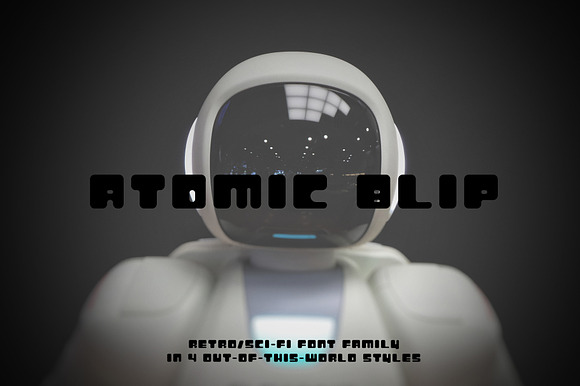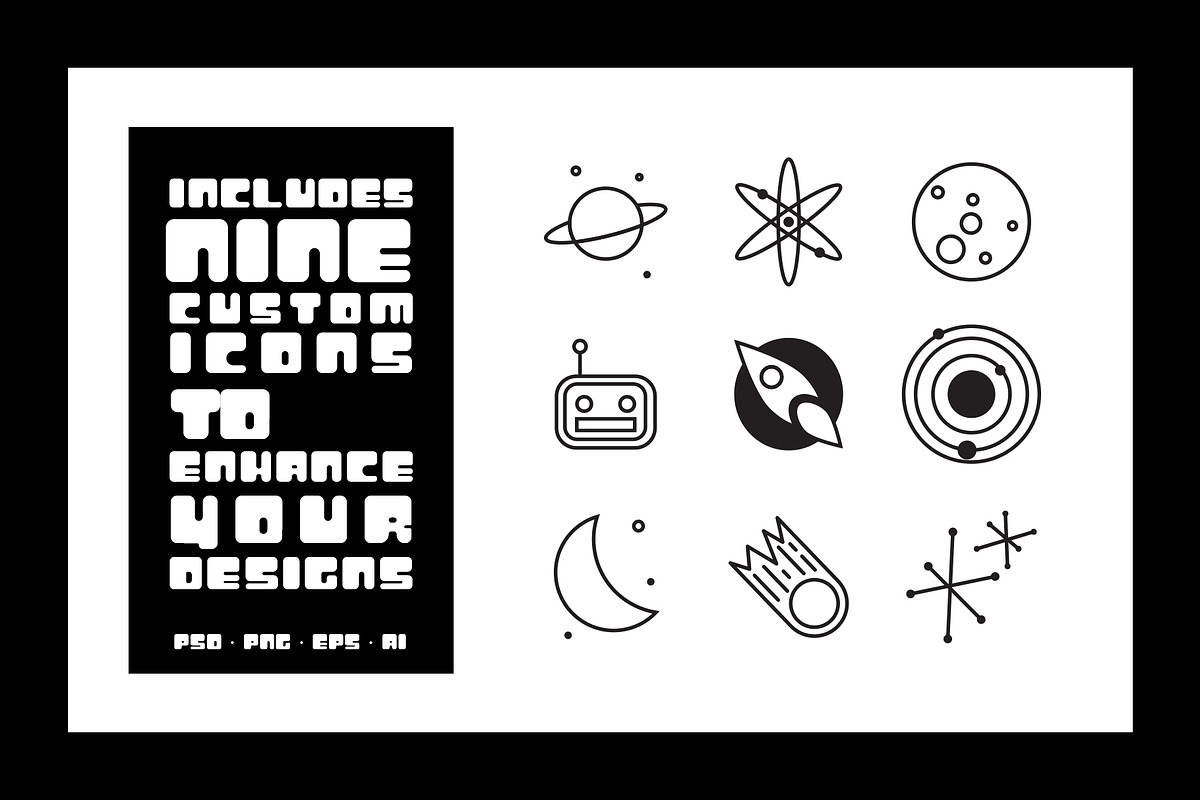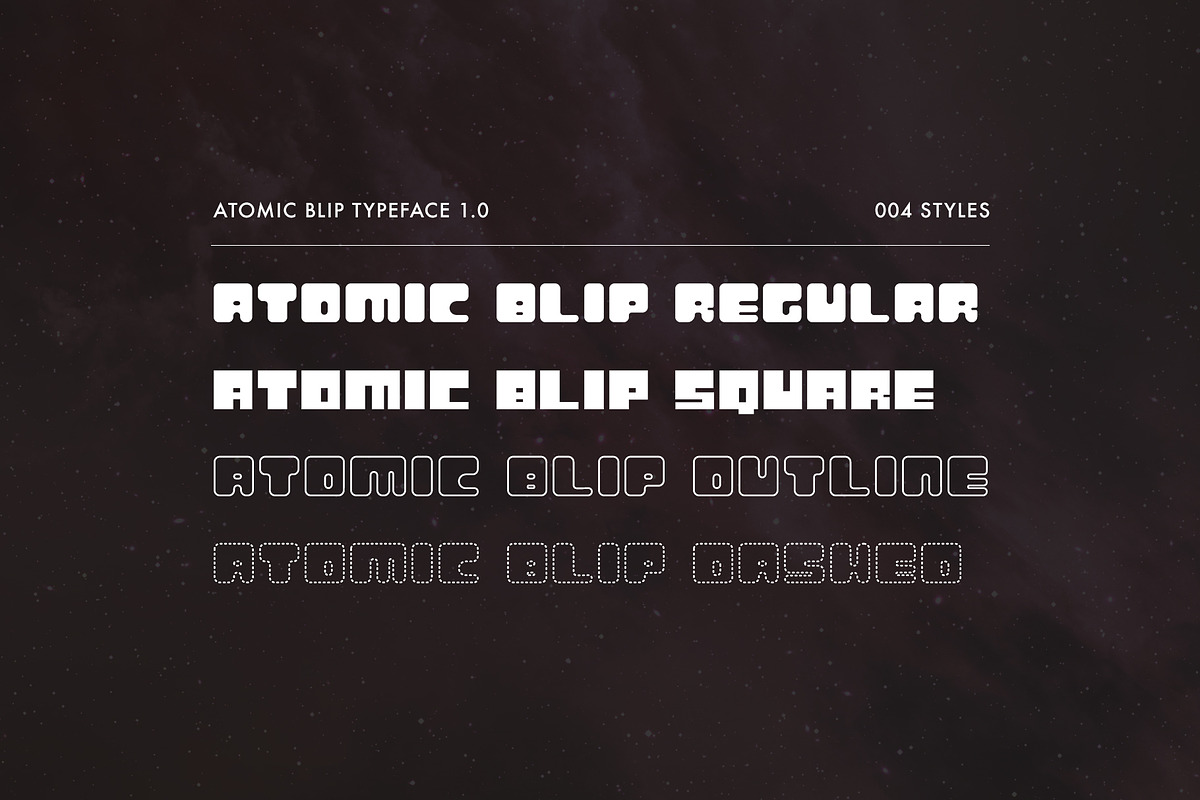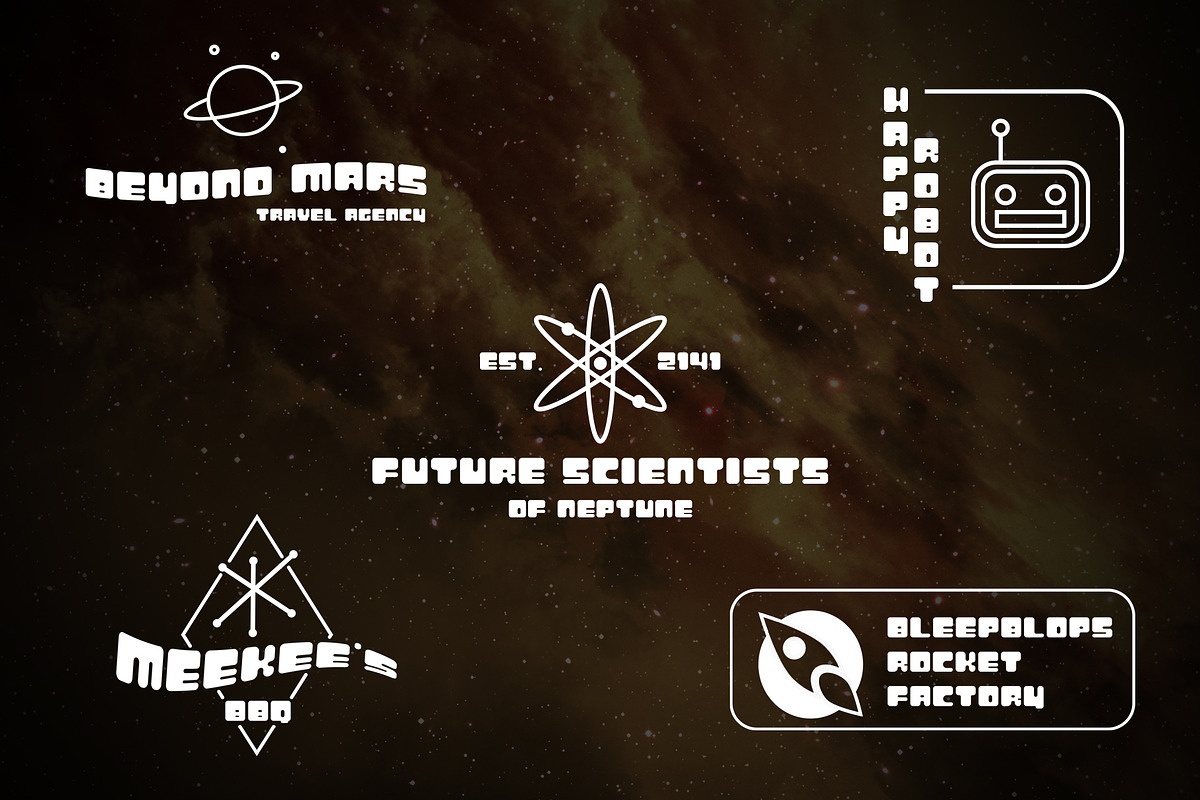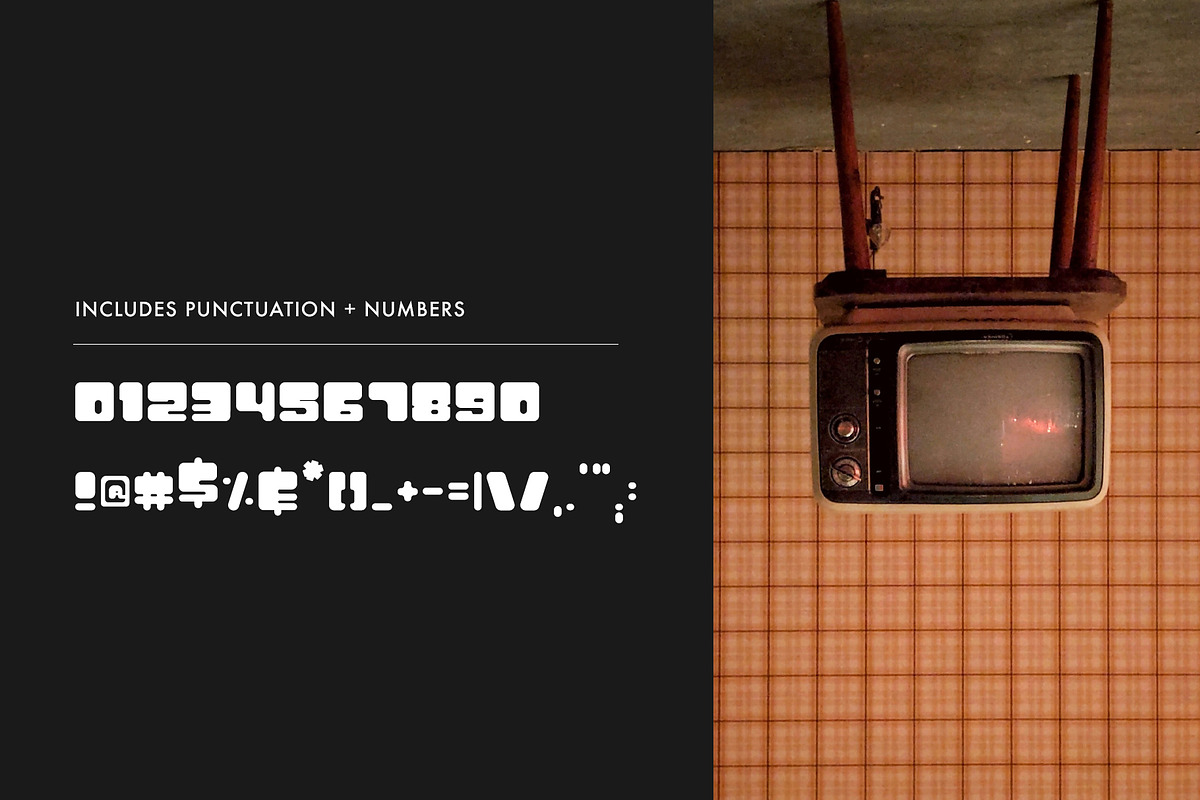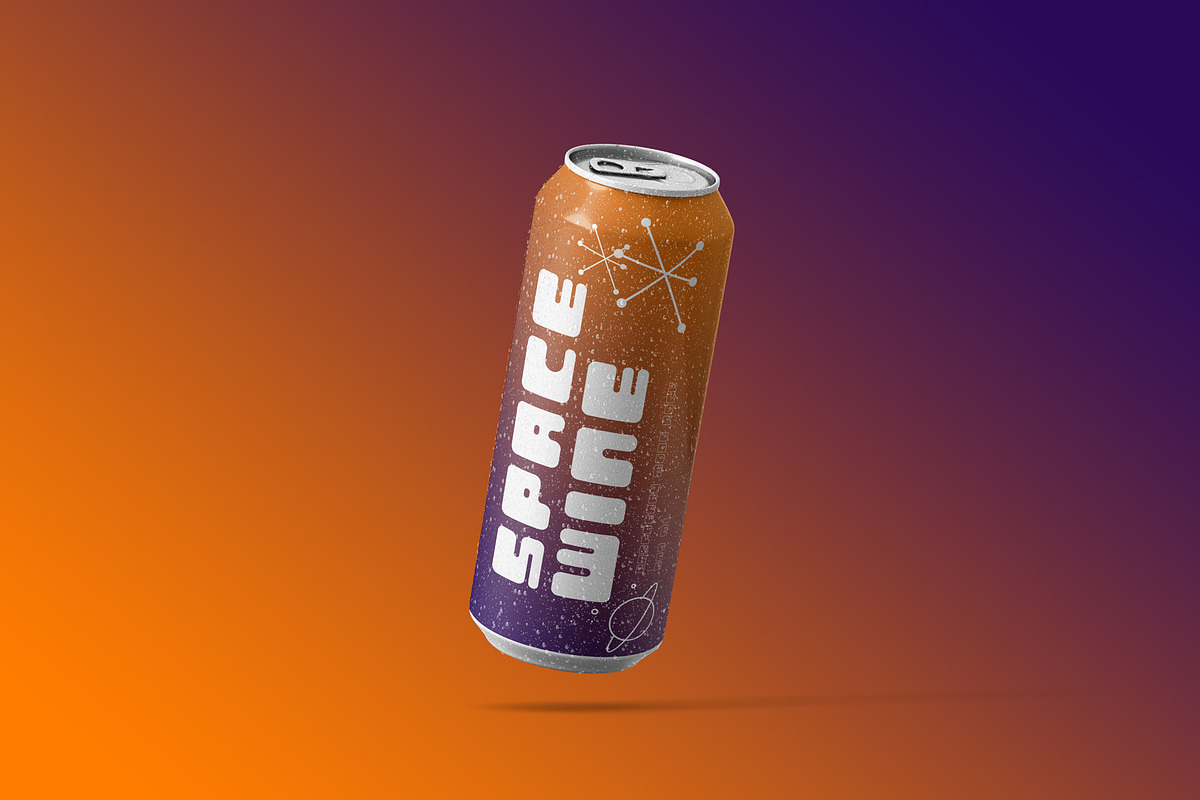
Atomic Blip | Font of the Future!
ATTENTION EARTHLINGS - Atomic Blip is the future of design. Somehow retro and futuristic, Atomic Blip is everything you ever wanted in a space-age typeface. Sporting 4 styles, rounded, square, dashed, and outlined, you can use this family for everything to the moon and back.